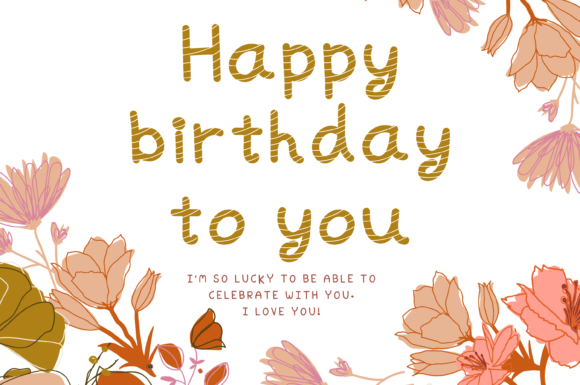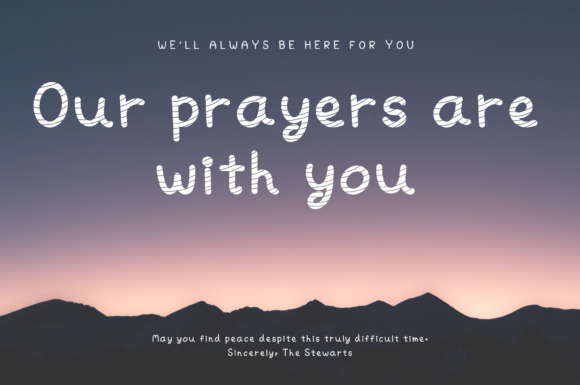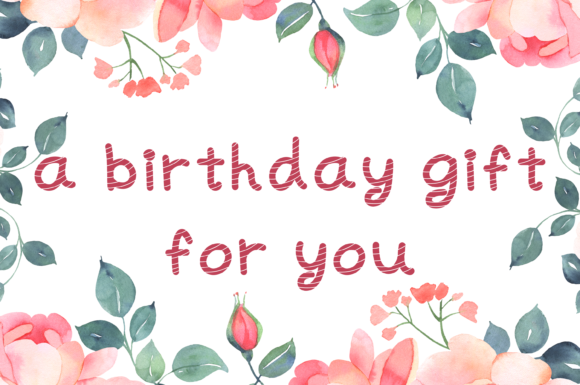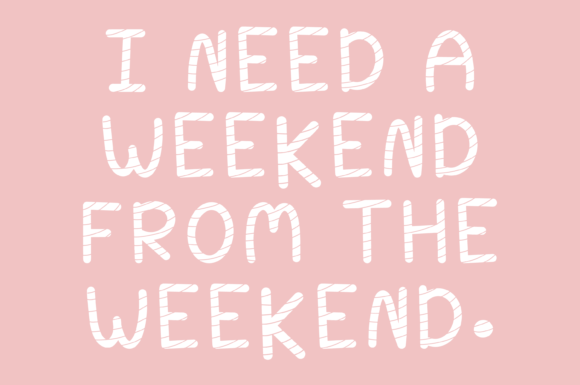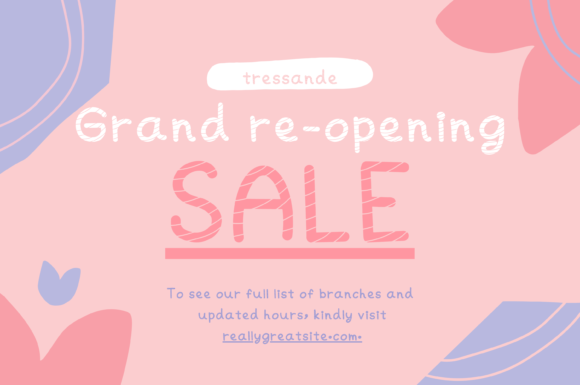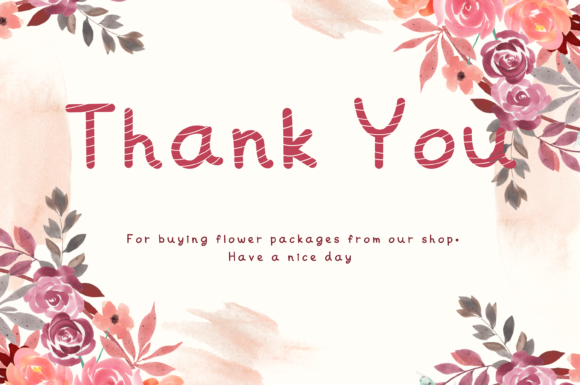
Introduction to Candy Style Font
Candy Style is a minimal and neat decorative font.
It can easily be matched to a large set of projects, so add it to your creative ideas and notice how it makes them stand out .
Key Features of Candy Style Font
Why Choose Candy Style Font?
Candy Style Font offers exceptional quality and versatility, making it a valuable addition to your design toolkit. Whether you’re creating for personal projects or commercial use, Candy Style Font delivers professional results.